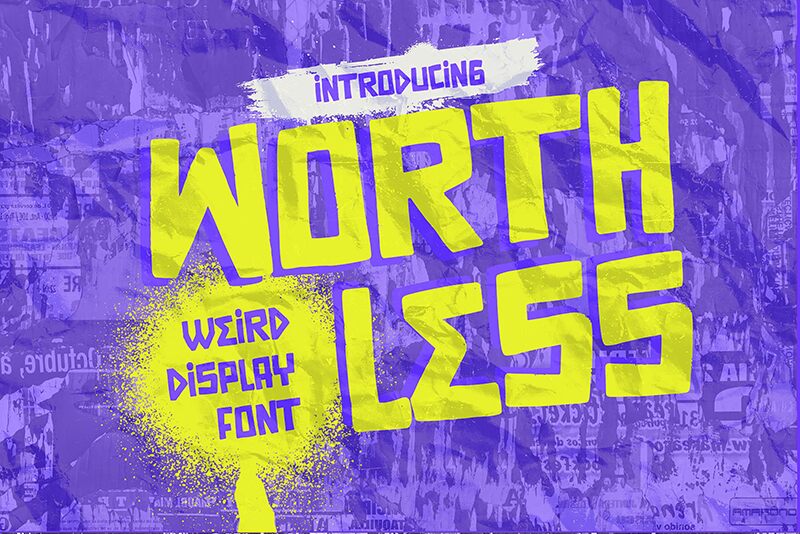
Worthless
Unleash your creative spirit with Worthless, an exuberant display font meticulously crafted by Gassstype. Worthless is no ordinary typeface; it's a vivid embodiment of fun, evoking the whimsy of cartoons and the boldness of modern design. Its quirky, casual strokes seem to dance across the page, infusing your projects with a sense of movement and spontaneity that is both refreshing and exciting.
Designed to make a statement, Worthless boasts a bold weight that catches the eye and captivates the imagination. It's an ideal choice for those seeking to inject personality into their work—be it logos that pop off the screen or posters that beg a second glance. Each character in this font is a testament to authenticity, making it perfect for any project demanding a touch of originality: from branding endeavors and packaging designs to website headers and social media graphics.
Embrace Worthless for its playful charm and let your designs communicate with unparalleled vibrancy!